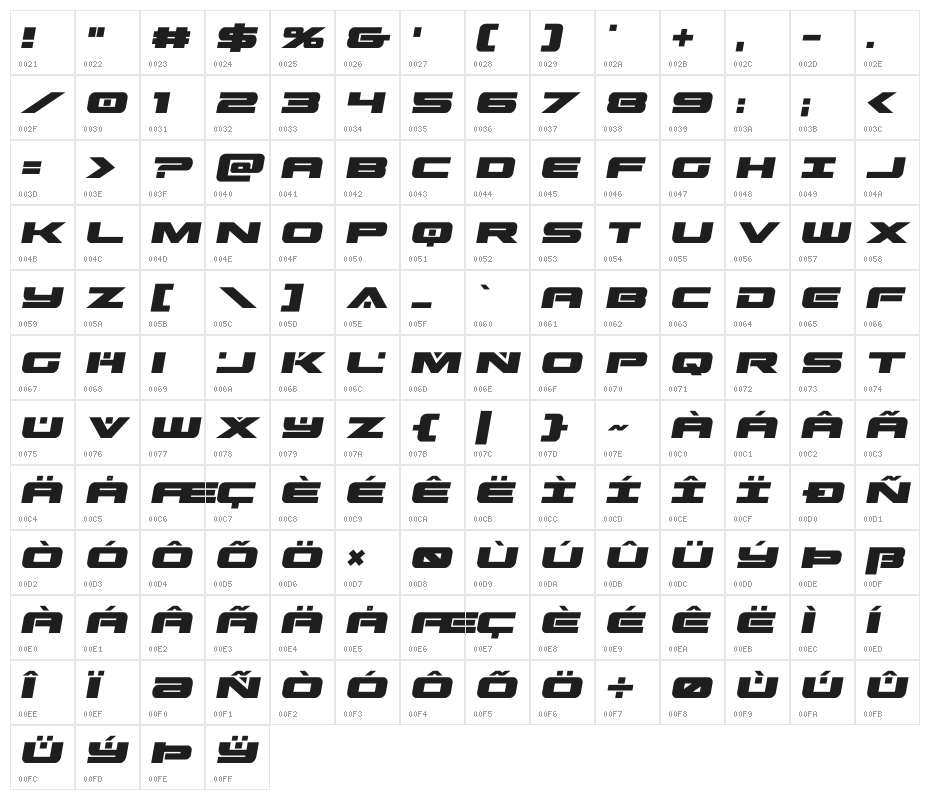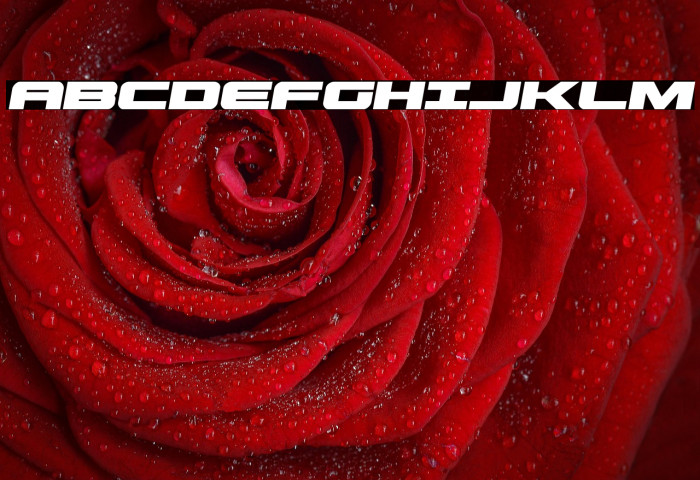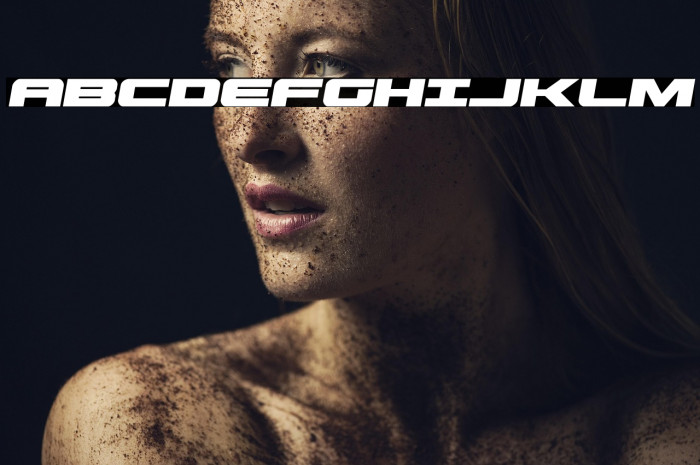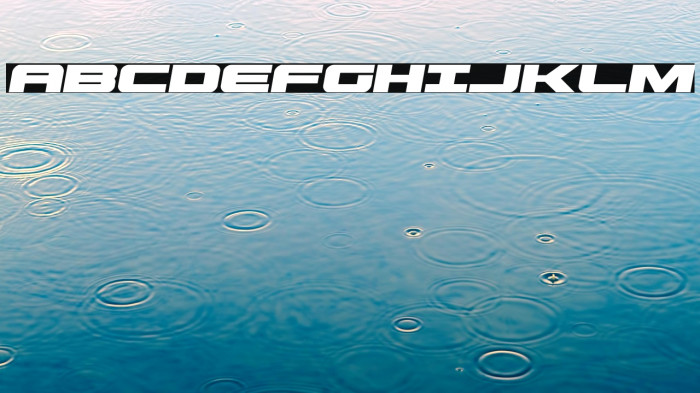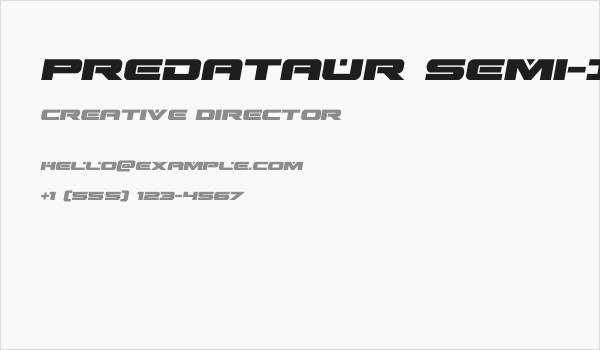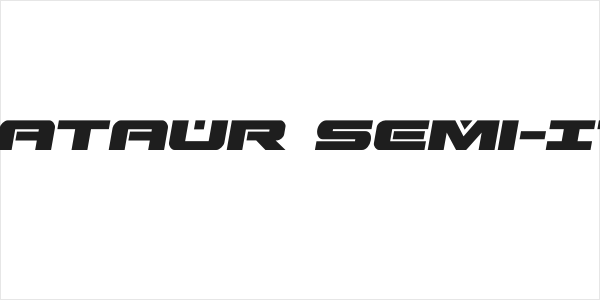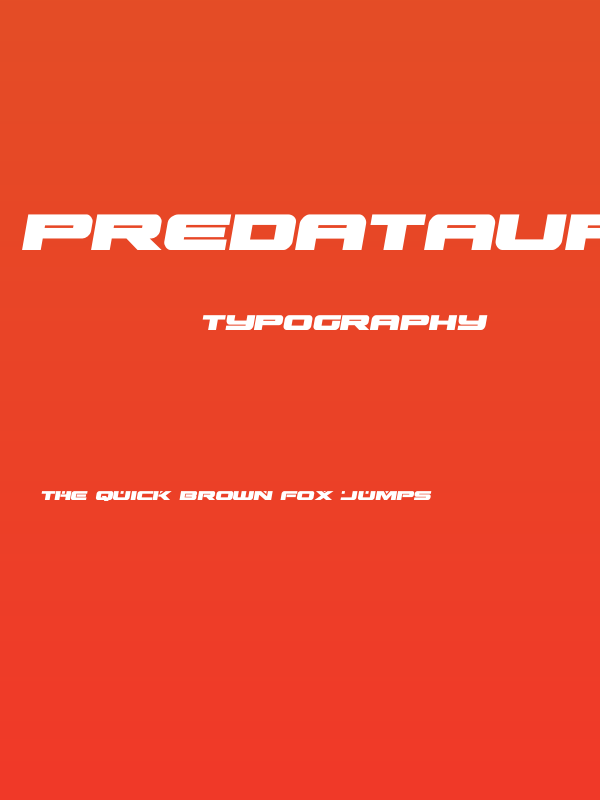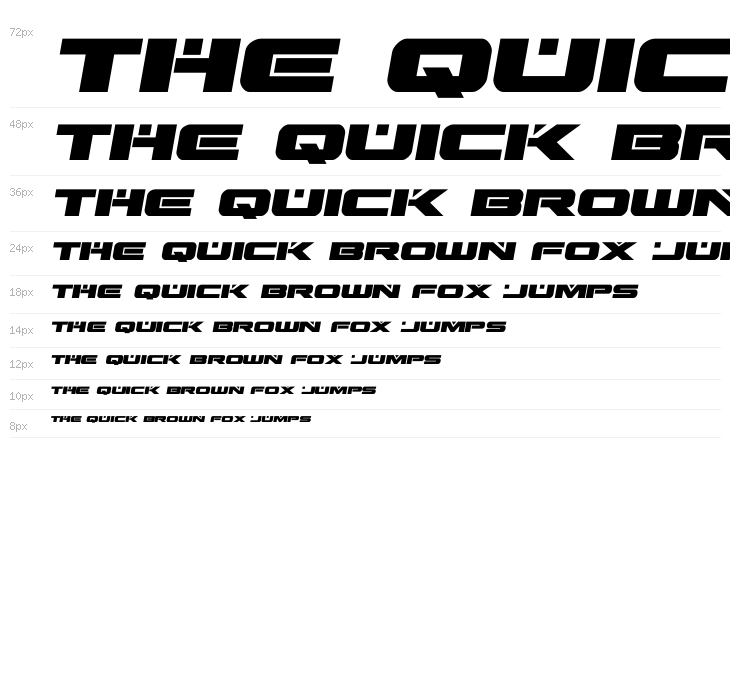
Predataur Semi-Italic Font
Predataur Semi-Italic Description
This font features a bold and dynamic design with a futuristic flair. The characters are slightly italicized, giving a sense of motion and speed. The strokes are thick and consistent, providing a strong presence on the page. The geometric shapes and sharp angles contribute to its modern and edgy appearance. The uppercase and lowercase letters maintain a uniform style, while the numerals and special characters are designed to match seamlessly. This font is ideal for projects that require a bold statement and a contemporary aesthetic.